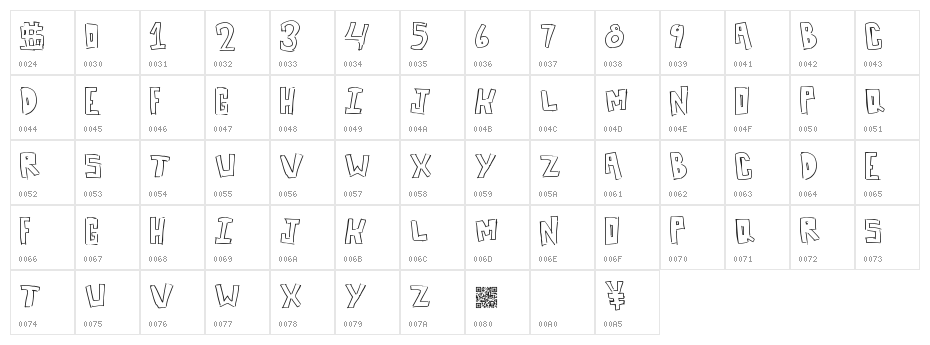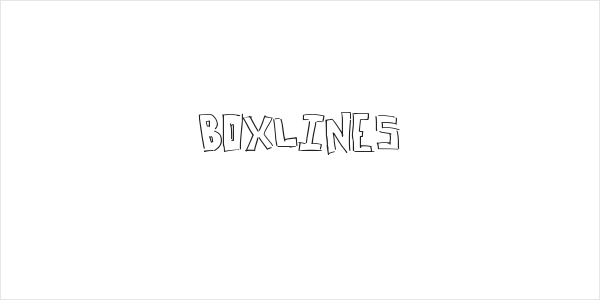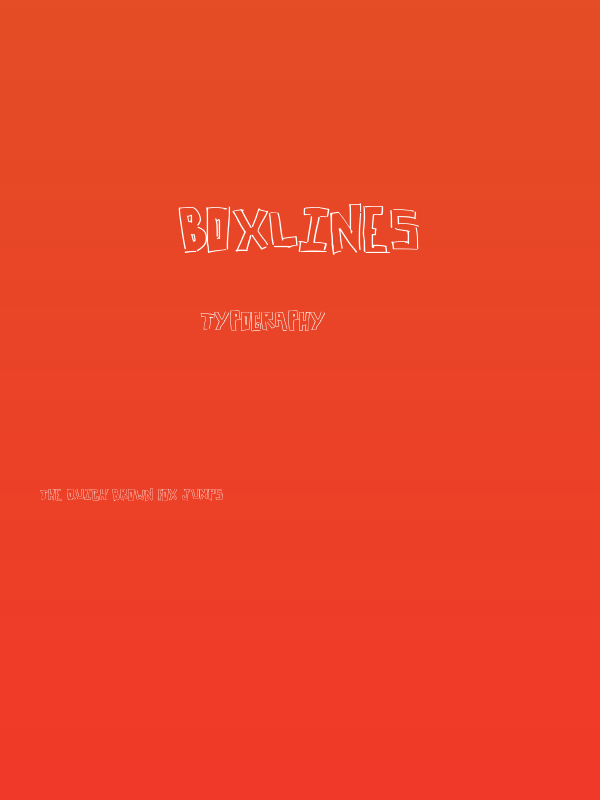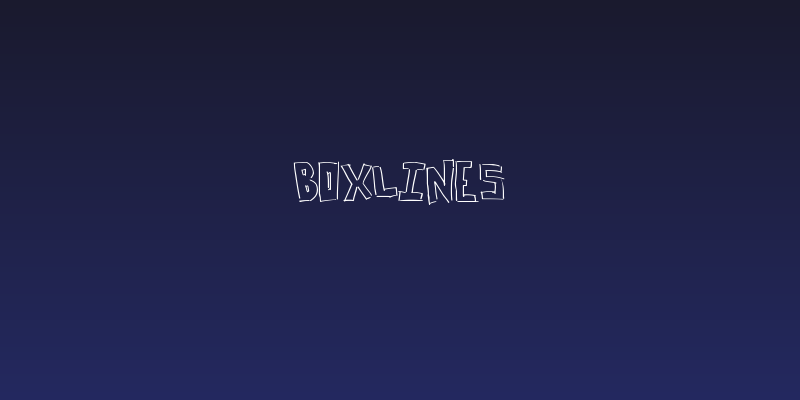
BoxLines Font
BoxLines Description
This font features a playful and quirky design with letters that appear to be outlined in a hand-drawn style. Each character is enclosed within a box-like structure, giving it a unique, cartoonish appearance. The lines are slightly irregular, adding to the informal and fun aesthetic. The font maintains a consistent height across all characters, with a bold and prominent presence. It is well-suited for creative projects that require a touch of whimsy and individuality.
| Overall Style | Playful, Quirky, Cartoonish |
| Proposed Projects | Ideal for children's books, comic strips, playful branding, and creative posters. |